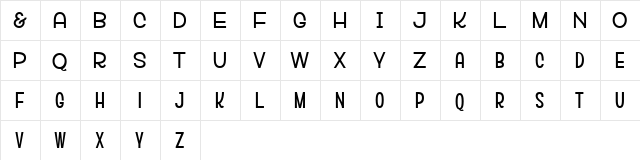
Versalita& Regular
| Foundry | Franco Fuentes |
| Designer | Franco Fuentes |
Design Context for Versalita& Typeface
Versalita& is a composed and adaptable typeface that performs quietly and consistently across a wide range of design contexts.